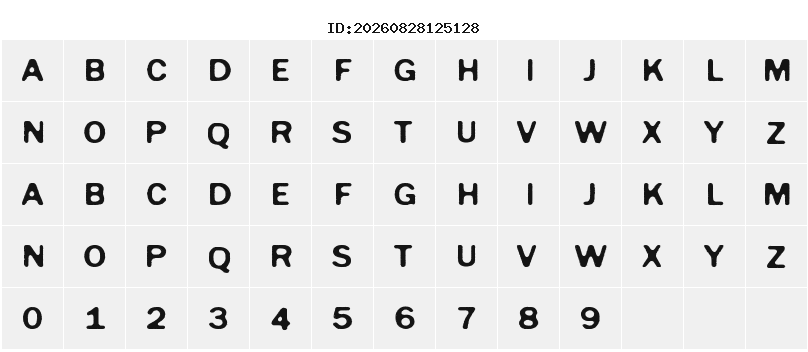
Tomorrow Comes Today Preview
• Font Name: Tomorrow Comes Today
About Tomorrow Comes Today.ttf
Tomorrow Comes Today.ttf is a modern, elegant sans-serif font designed for ultimate readability and visual harmony. Perfect for branding, headlines, web design, and print materials.